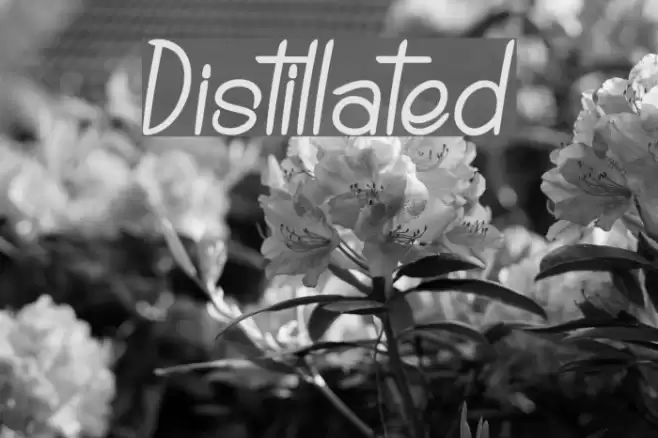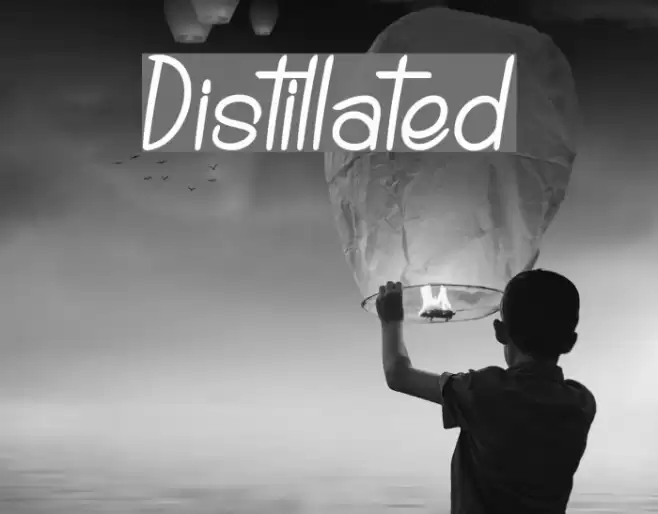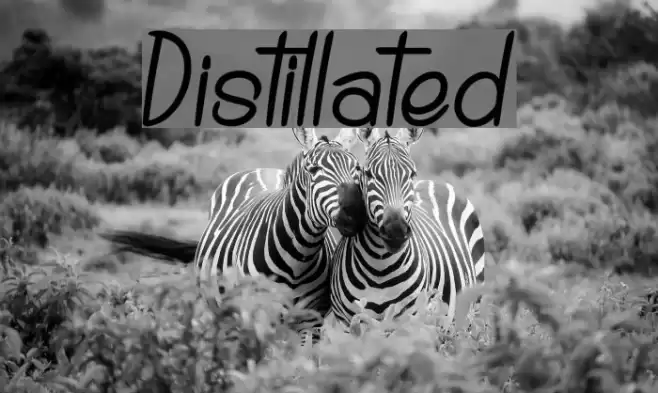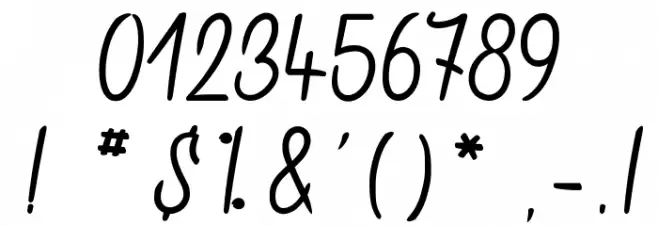
Distillated Font
This font features a playful and casual handwritten style, characterized by its smooth, flowing lines and slightly irregular shapes. The uppercase letters are tall and narrow, while the lowercase letters maintain a consistent height, giving the font a cohesive look. The numbers are rounded and align well with the overall style, adding to its friendly appearance. Special characters are integrated seamlessly, maintaining the font's informal and approachable feel. The strokes are consistent in width, providing a balanced and harmonious appearance.
A playful, casual handwritten font with smooth, flowing lines from Uncategorized fonts.
- Proposed Projects: Ideal for greeting cards, invitations, personal branding, and informal digital content.
- Overall Style: Casual
- Use Case: Logos, Invitations, Greeting Cards